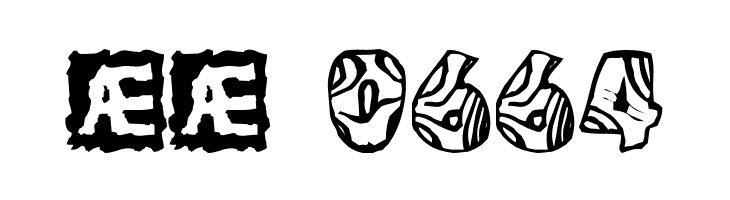
Realistic Шрифта
- Шрифта: Realistic
( Fonts by www.aenigmafonts.com )
A decorative font with swirling patterns inside each character, offering a bold and artistic look.